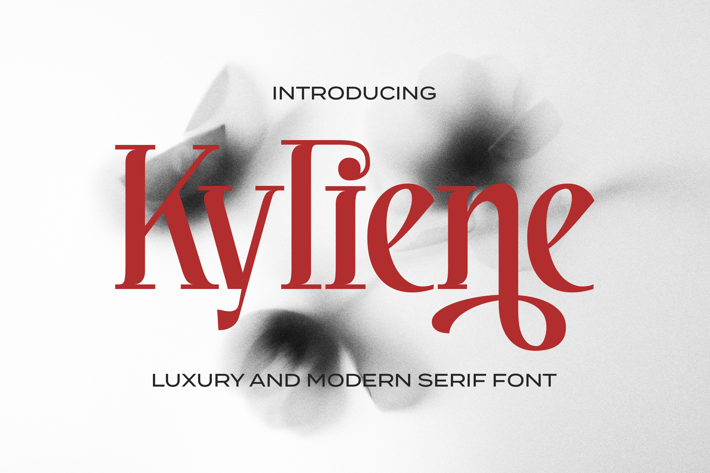
Kyliene - A Luxury and Modern Serif Font
Showcase modern opulence.
Introducing Kyliene - A Luxury and Modern Serif Font.
Captivate your audience with this elegant typeface. Its sleek lines and refined curves will add a touch of luxury to any design. Unveil the essence of elegance today!
Multilingual & Ligature Support
Full sets of Punctuation and Numerals